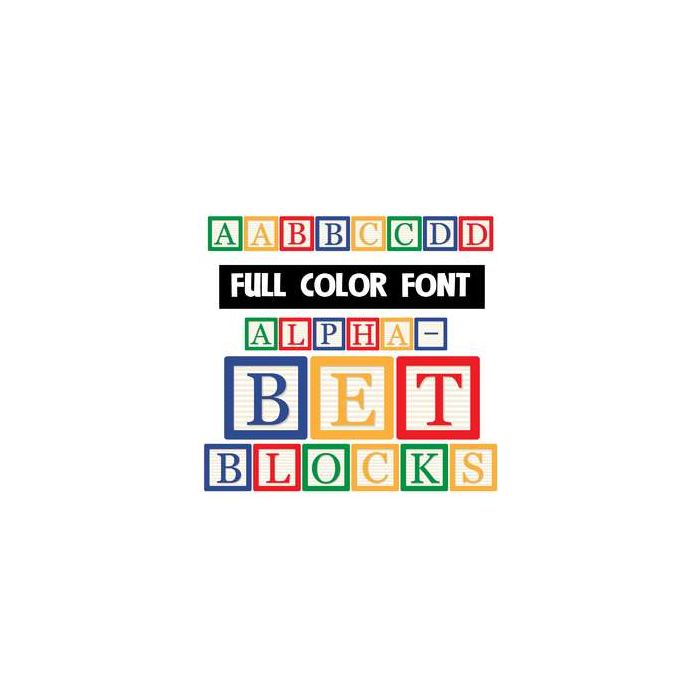
This full-color font looks like alphabet blocks. The upper and lowercase differ in color, not case. This font works best for titles, displays, posters and more. Please note color fonts will show as black in non compatible programs. This font type is compatible with Silhouette Studio.